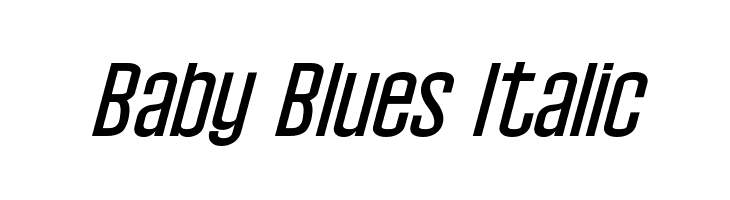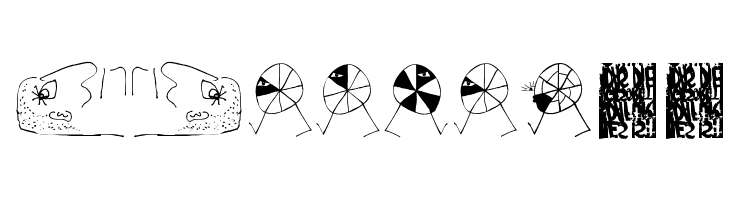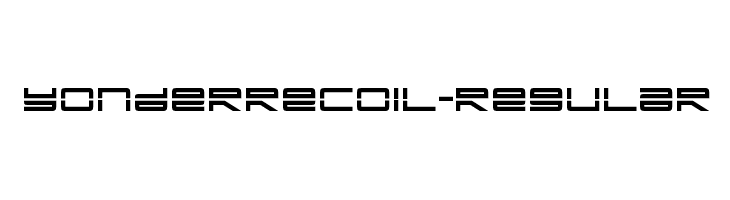
A futuristic, geometric font with a digital and technological aesthetic.
A bold, playful font with thick, rounded strokes and whimsical curves.
A traditional Blackletter font with ornate, gothic letterforms and high contrast.
A bold, futuristic font with angular, geometric shapes.
A bold, modern font with a wide, geometric design.
A decorative and abstract font with characters in circular shapes, featuring bold and artistic designs.
A bold, angular, and italicized font with a futuristic and edgy style.